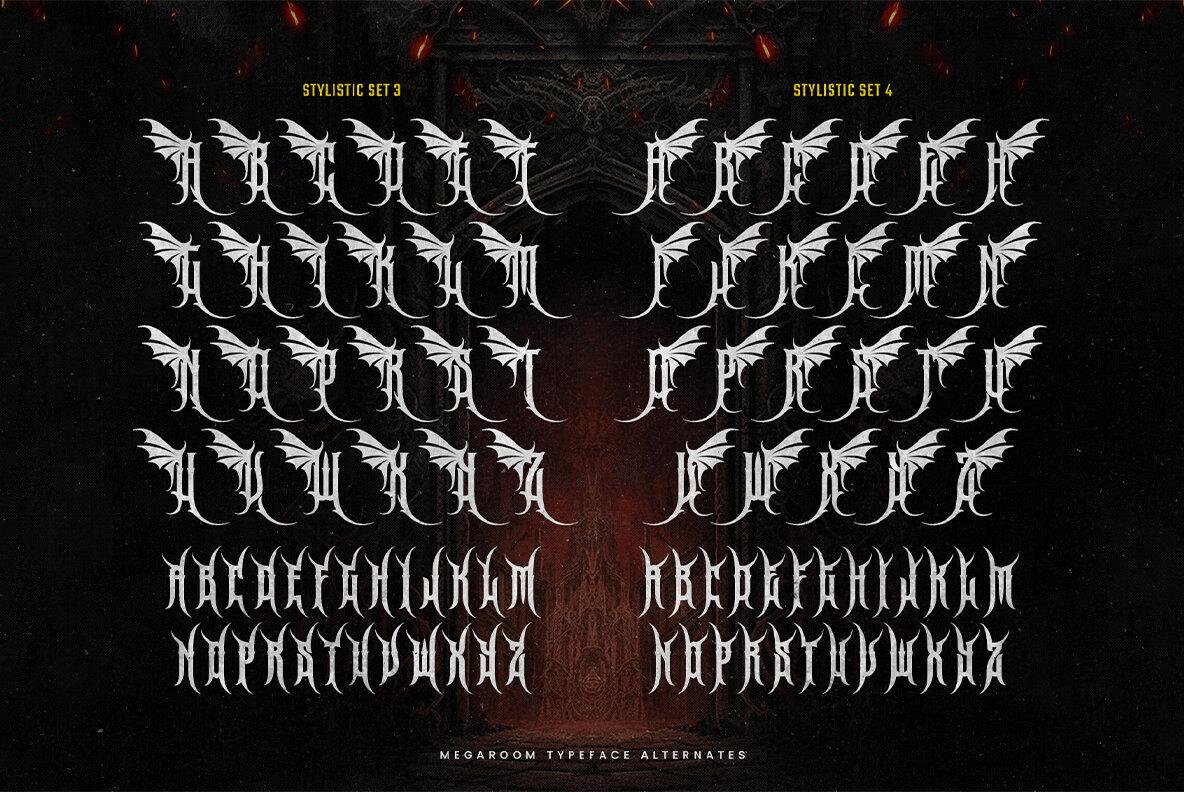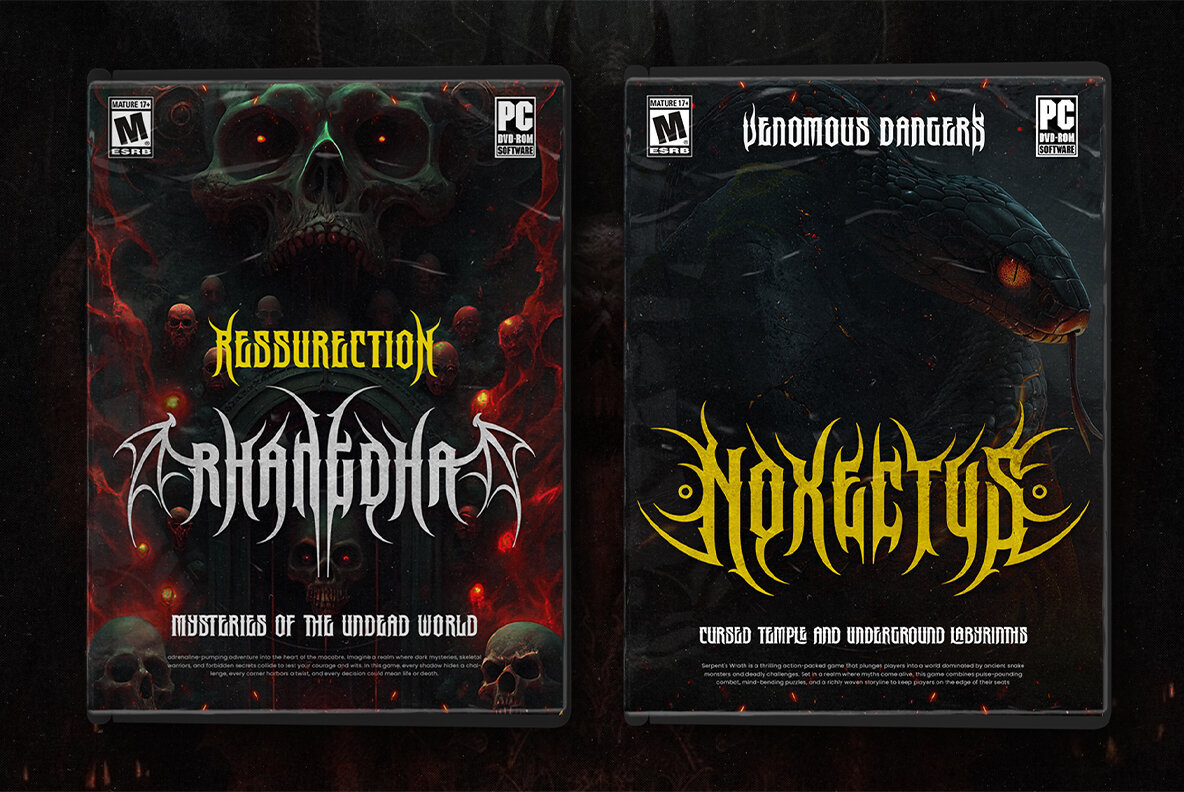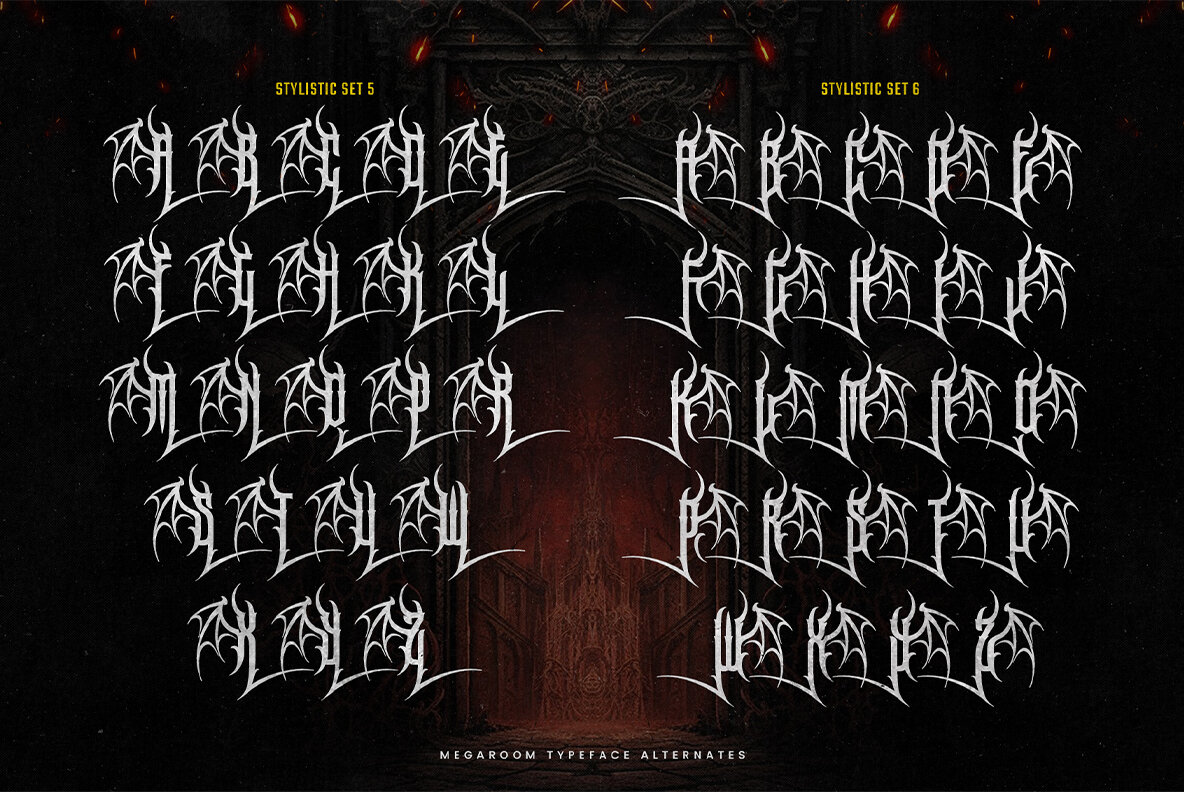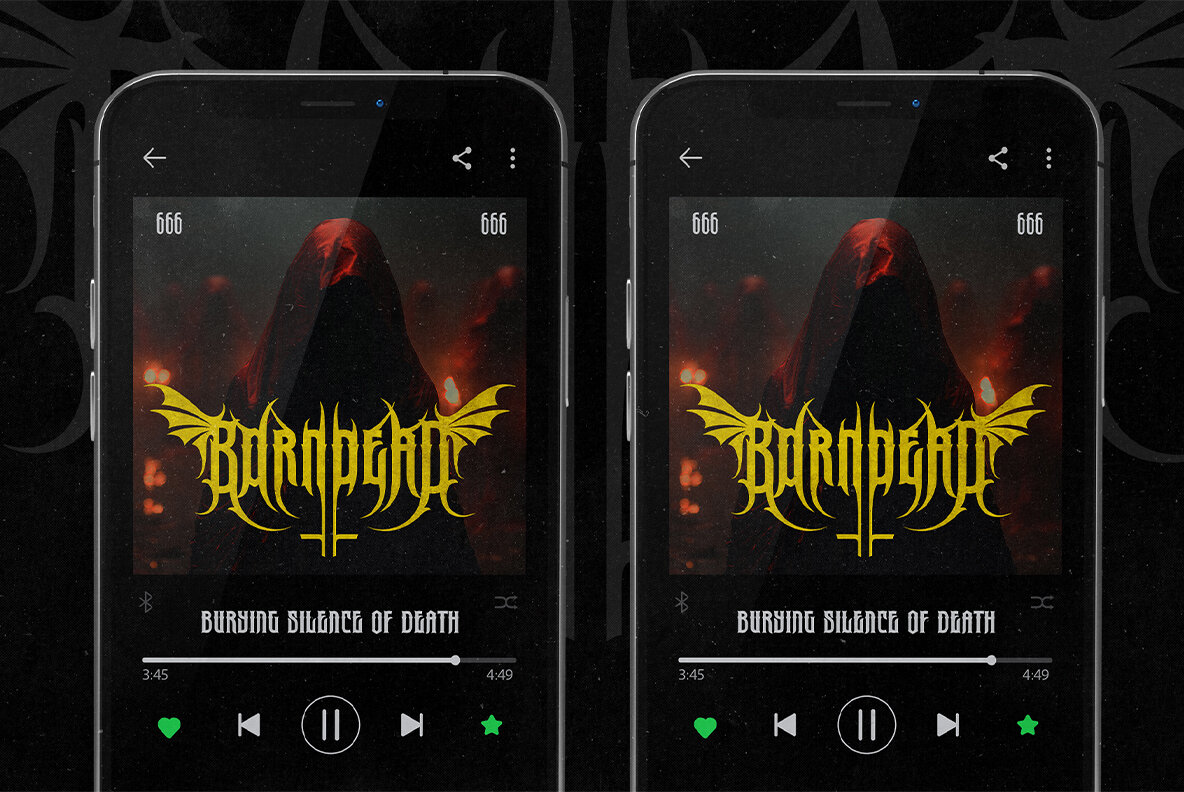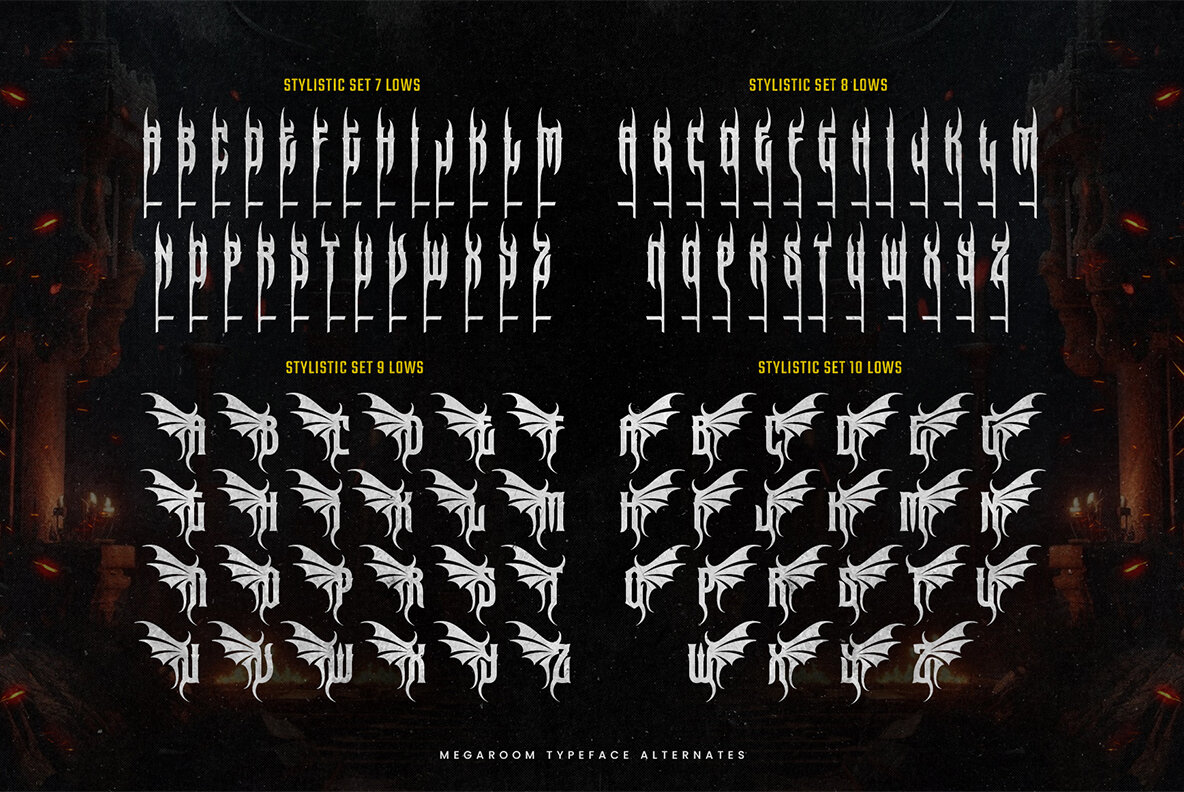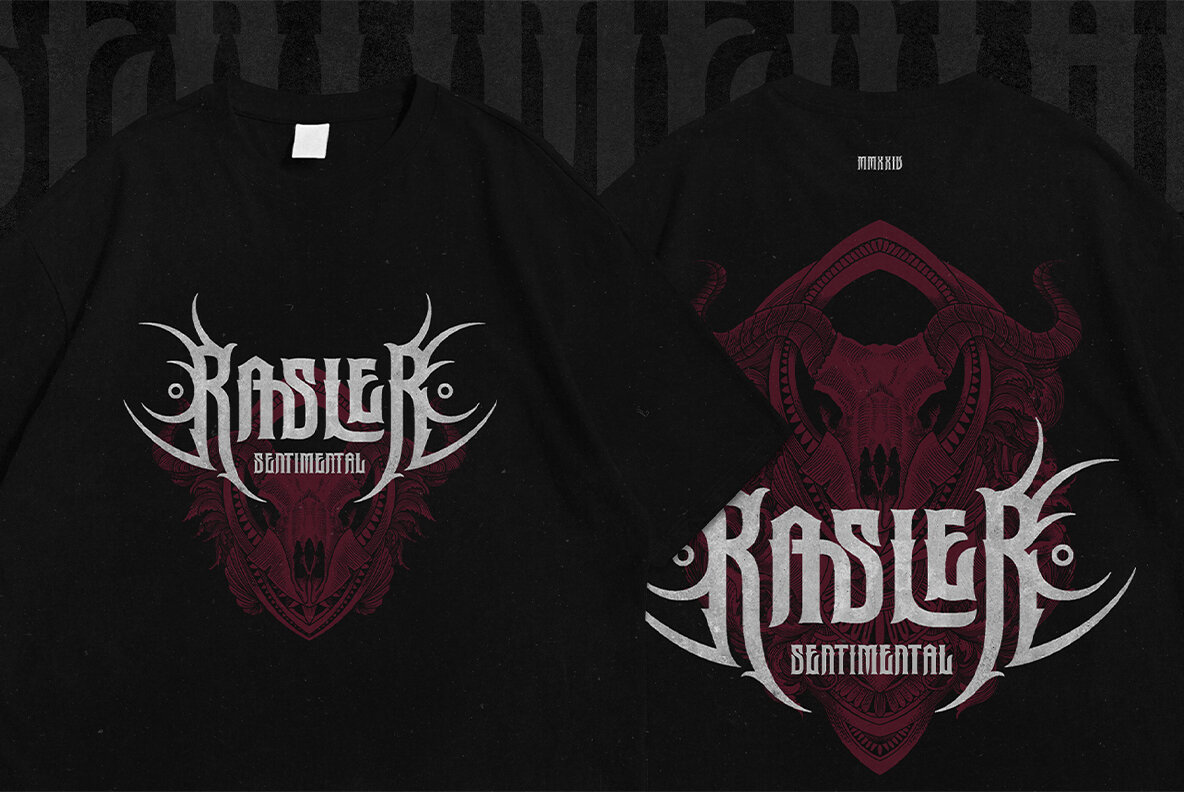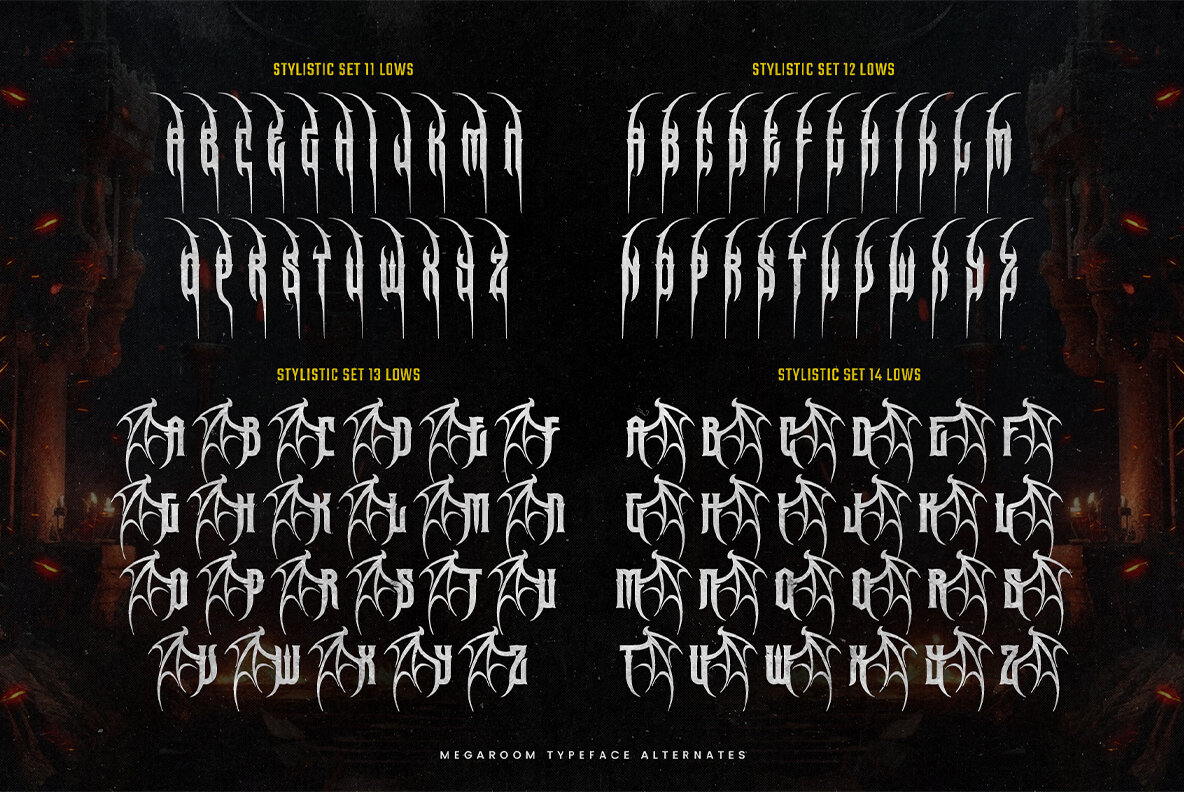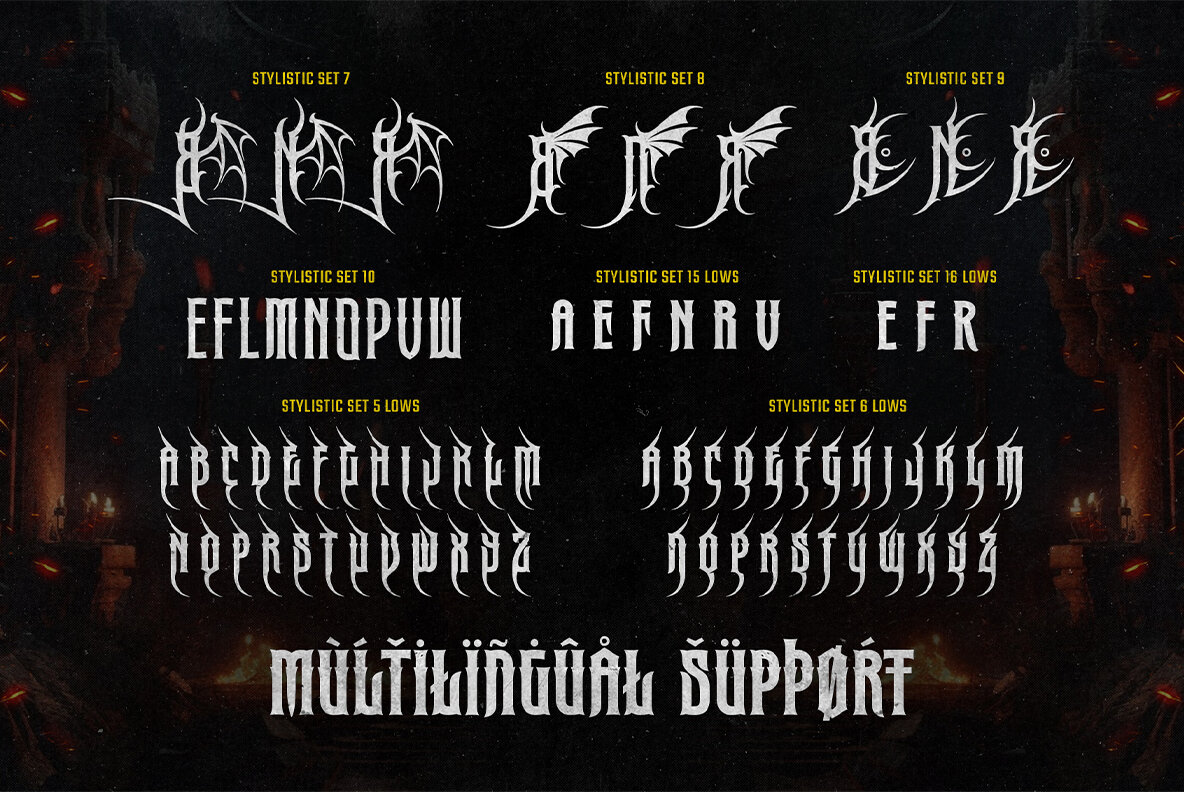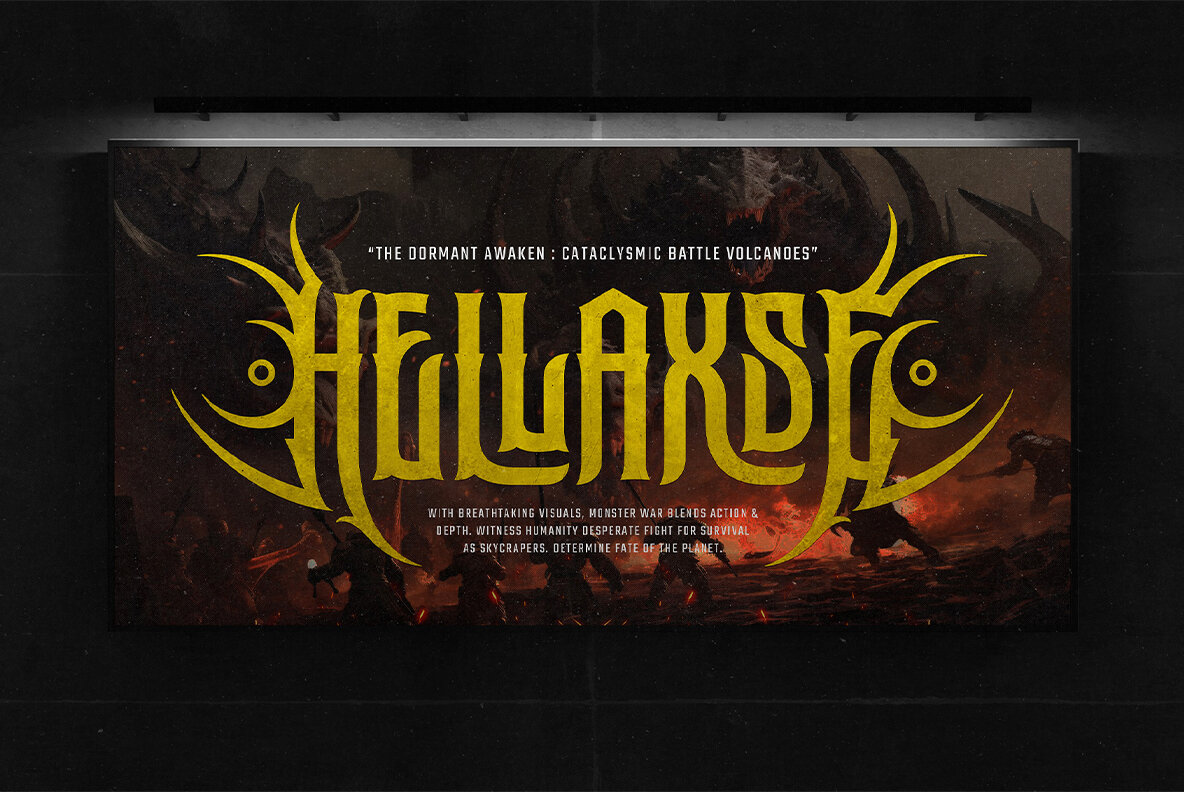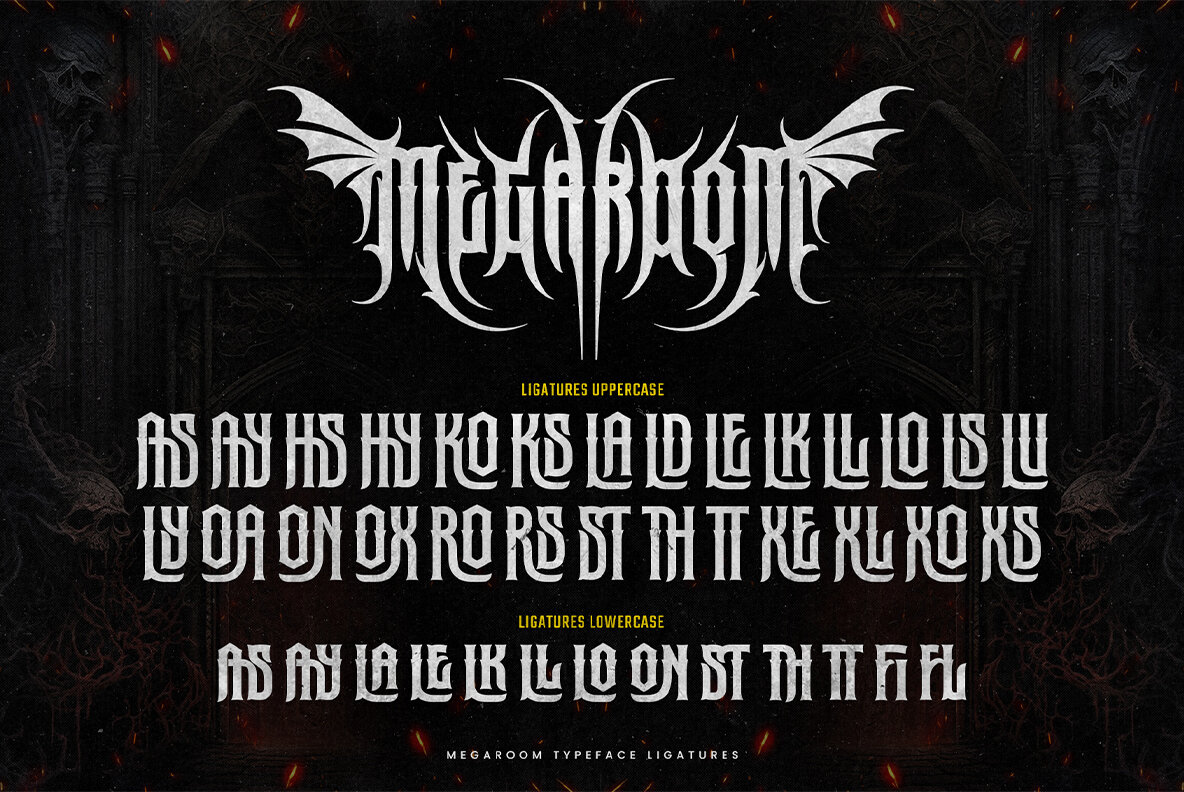
Megaroom Font
Megaroom Regular
Megaroom Typeface is a fierce and modern font, perfect for projects that call for the raw power of death metal aesthetics. This typeface channels an aggressive, edgy style with sharp edges and jagged forms, ideal for creating intense visual impacts. Whether you're designing a striking band logo, a dynamic gaming interface, or visually dominant merchandise, Megaroom delivers a strong and commanding presence.
Key features of Megaroom include its dynamic and fierce characters that exude intensity, combined with a modern aesthetic that seamlessly merges the brutal energy of death metal with contemporary design. The versatile font is excellently suited for music posters, game titles, merchandise, and dark-themed branding efforts. Its all-caps design commands attention, while the inclusion of numerals, punctuation, and unique symbols rounds out the dramatic look.
Dive into creative chaos with Megaroom Typeface, where modern design meets metal-inspired ferocity. Make your work unforgettable with this bold and daring choice that truly stands out in any project.